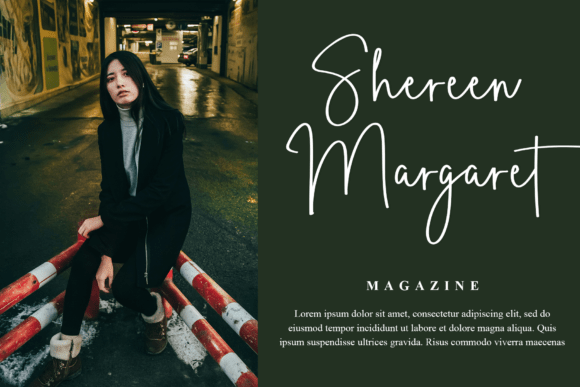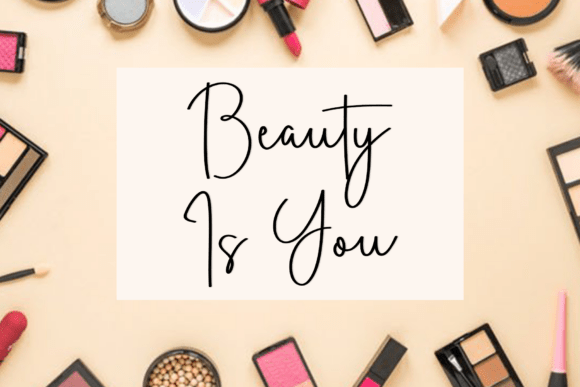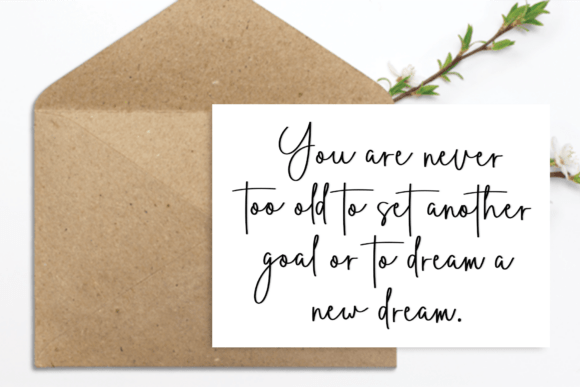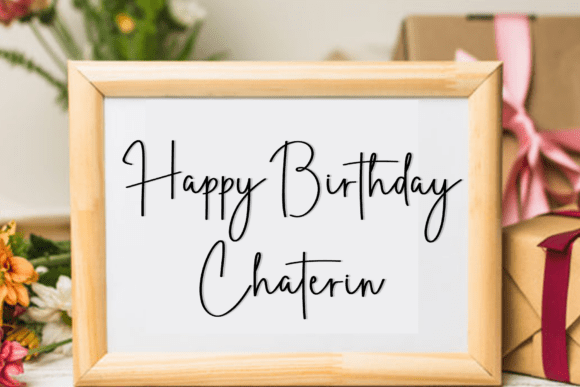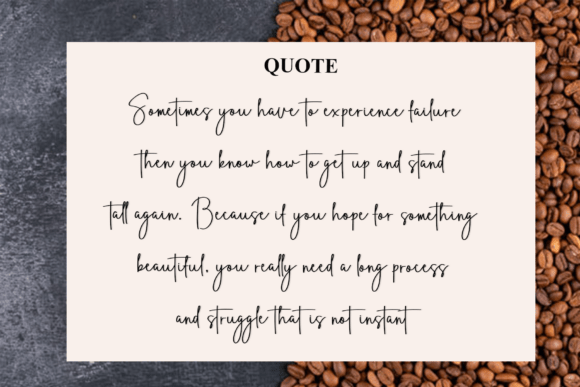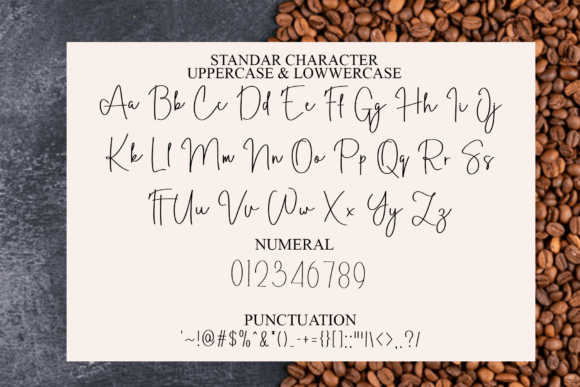
Introducing Besthetical Font: The Ultimate Holiday Typeface
The holiday season is upon us, and what better way to get into the spirit than with a festive and merry typeface? Look no further than Besthetical Font, a decorative and whimsical font that’s perfect for adding a touch of enchantment to your designs. In this article, we’ll dive into the world of Besthetical Font and explore its features, uses, and benefits for designers and crafters alike.
Besthetical Font is a holiday-themed typeface that’s designed to capture the magic and wonder of the season. With its decorative elements and whimsical flair, this font is sure to add a cheerful and nostalgic ambiance to your words. Whether you’re creating greeting cards, gift tags, or holiday-themed projects, Besthetical Font is the perfect choice.
Key Features of Besthetical Font
- Decorative Elements: Besthetical Font features intricate and decorative elements that add a touch of elegance and sophistication to your designs.
- Whimsical Flair: This font has a playful and whimsical feel that’s perfect for creating festive and fun designs.
- PUA Encoded: Besthetical Font is PUA encoded, which means you can access all of the amazing glyphs and ligatures with ease.
- Multilingual Support: This font supports multiple languages, making it perfect for designers and crafters around the world.
Besthetical Font is specifically designed for holiday-themed projects, making it the perfect choice for designers and crafters who want to create festive and fun designs. Here are some project ideas that are perfect for Besthetical Font:
- Greeting Cards: Create beautiful and festive greeting cards for Christmas, Hanukkah, or other holiday celebrations.
- Gift Tags: Add a personal touch to your gifts with custom gift tags featuring Besthetical Font.
- Holiday-Themed Projects: Use Besthetical Font to create festive and fun designs for holiday-themed projects, such as party invitations, decorations, or social media graphics.
Besthetical Font offers a range of benefits for designers and crafters, including:
- Ease of Use: With its PUA encoding, Besthetical Font is easy to use and access, even for designers and crafters who are new to font editing software.
- Customization: Besthetical Font offers a range of glyphs and ligatures that can be customized to fit your design needs.
- Time-Saving: With Besthetical Font, you can create festive and fun designs in no time, saving you time and effort.
Tips for Using Besthetical Font
Here are some tips for getting the most out of Besthetical Font:
- Experiment with Different Sizes: Besthetical Font looks great in a range of sizes, from small and delicate to large and bold.
- Pair with Other Fonts: Try pairing Besthetical Font with other fonts to create a unique and eye-catching design.
- Use with Holiday-Themed Graphics: Use Besthetical Font with holiday-themed graphics, such as snowflakes, holly, or Christmas trees, to create a festive and fun design.
Besthetical Font is a festive and merry typeface that’s perfect for adding a touch of enchantment to your designs. With its decorative elements, whimsical flair, and PUA encoding, this font is sure to bring a cheerful and nostalgic ambiance to your words. Whether you’re a designer or crafter, Besthetical Font is a must-have for any holiday-themed project. So why wait? Download Besthetical Font today and let your typography shine with the magic of the holiday season!